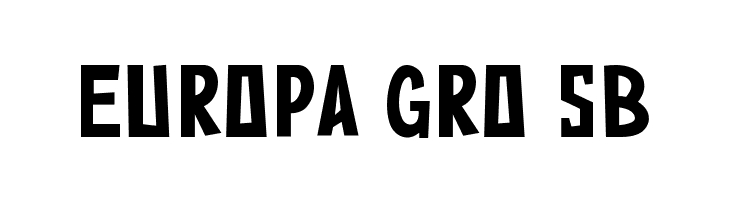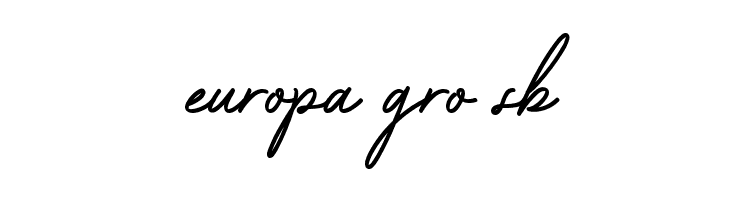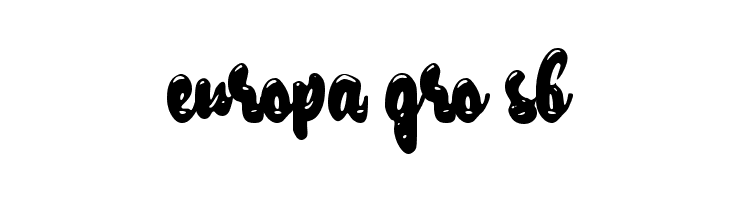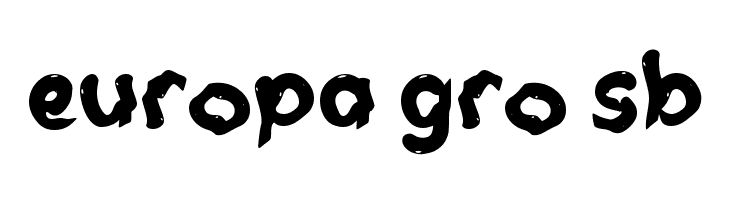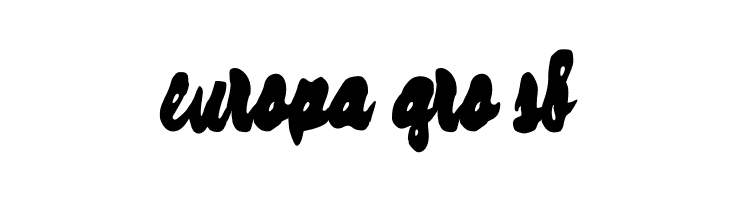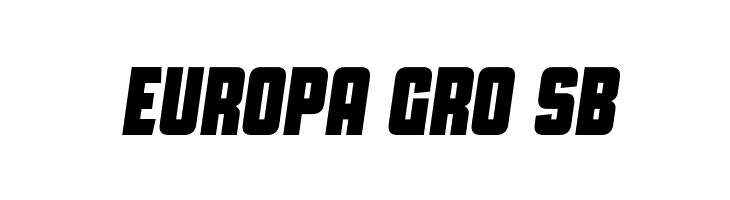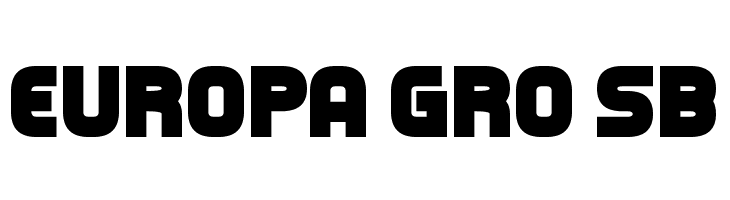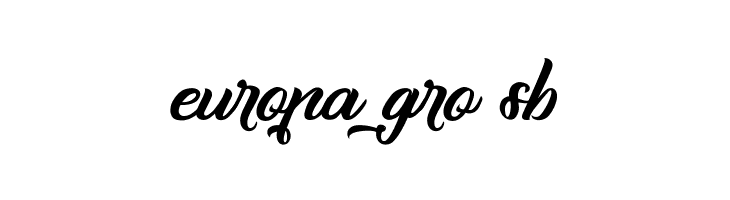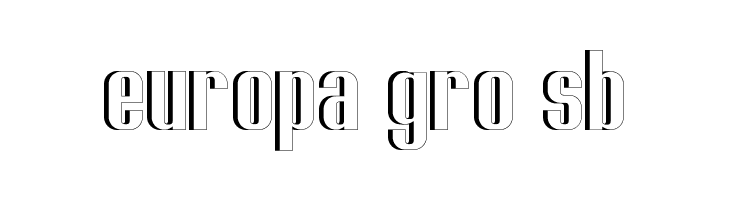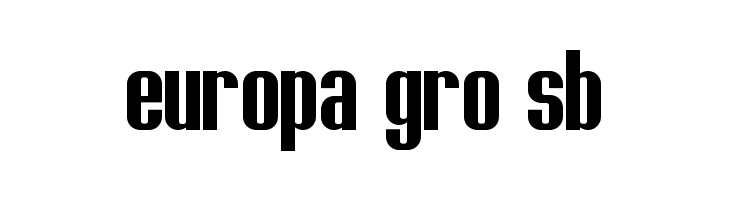
A sophisticated, slanted cursive font with elegant, flowing strokes.
A bold, condensed font with a modern and impactful style.
A modern, bold font with open outlines and a condensed style.
A bold, hand-drawn font with an expressive and playful style.
A bold, playful font with a hand-drawn, graffiti-like style.
An elegant, cursive script font with flowing, ornate characters.
A bold, playful script font with thick, rounded strokes and a lively, interconnected design.
A bold, angular font with a playful and dynamic style.
A bold, geometric font with rounded edges and a modern style.
A bold, italicized font with a dynamic and modern style.